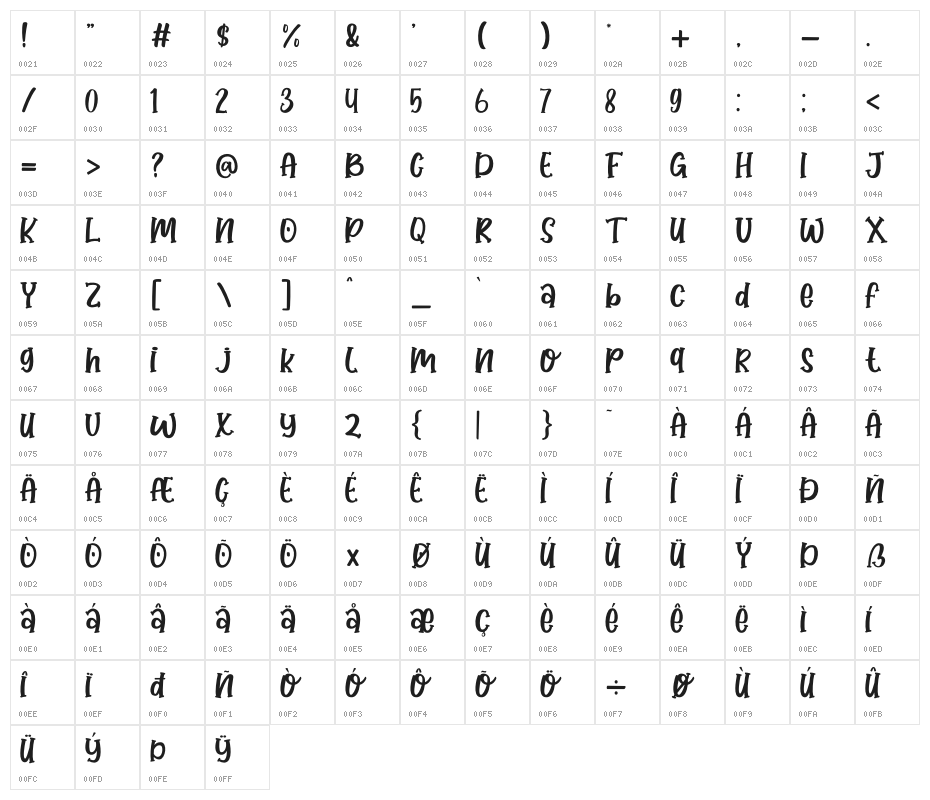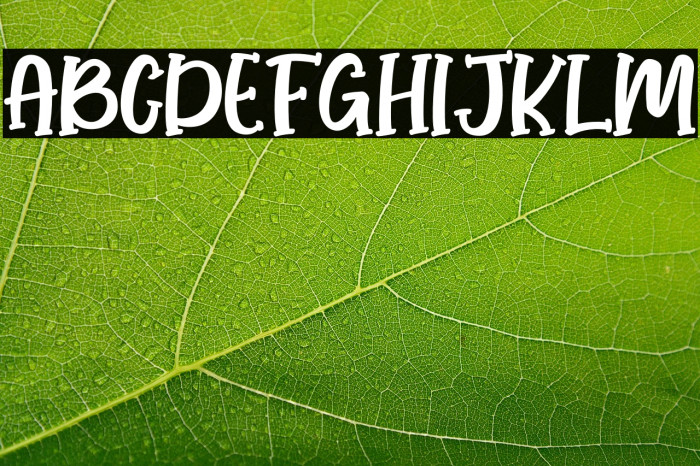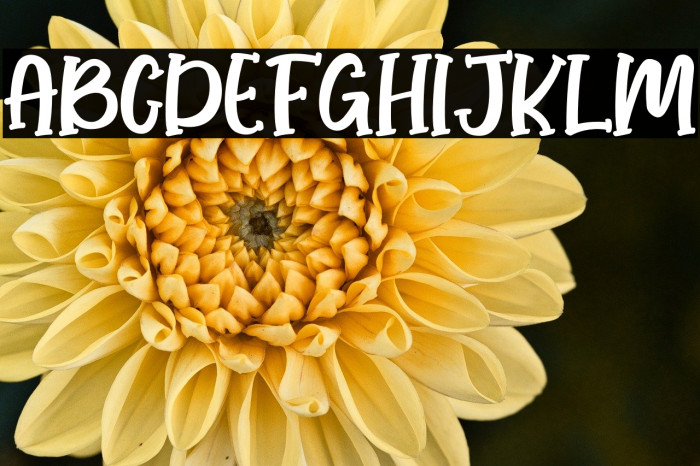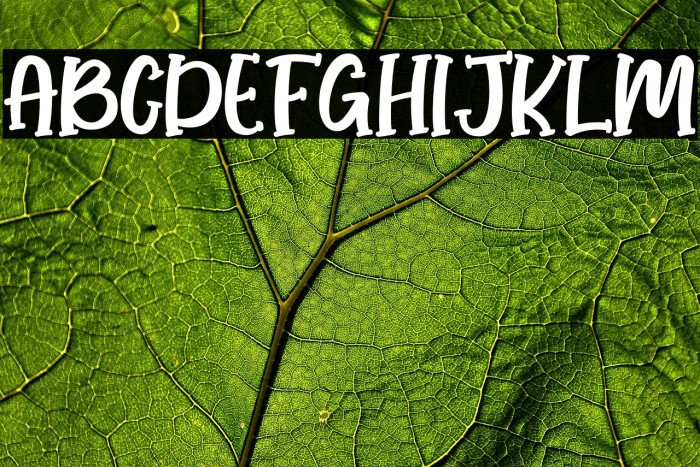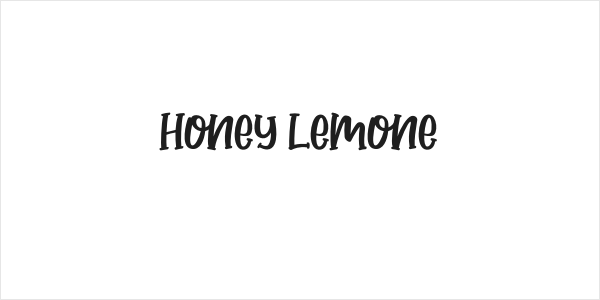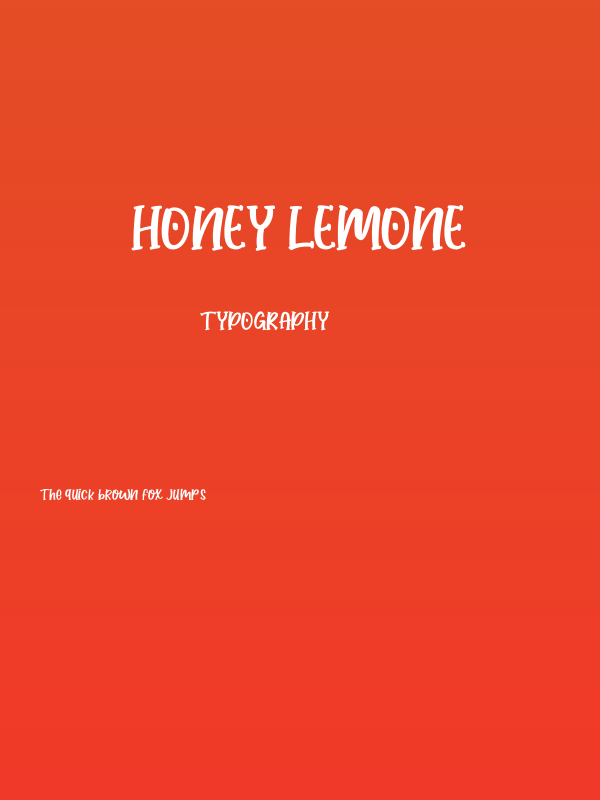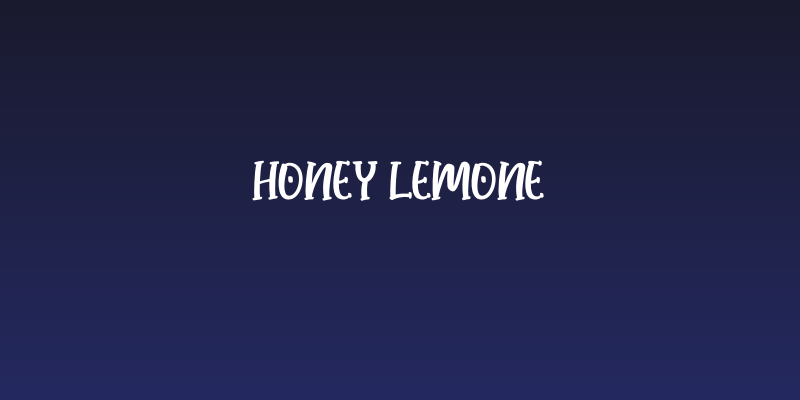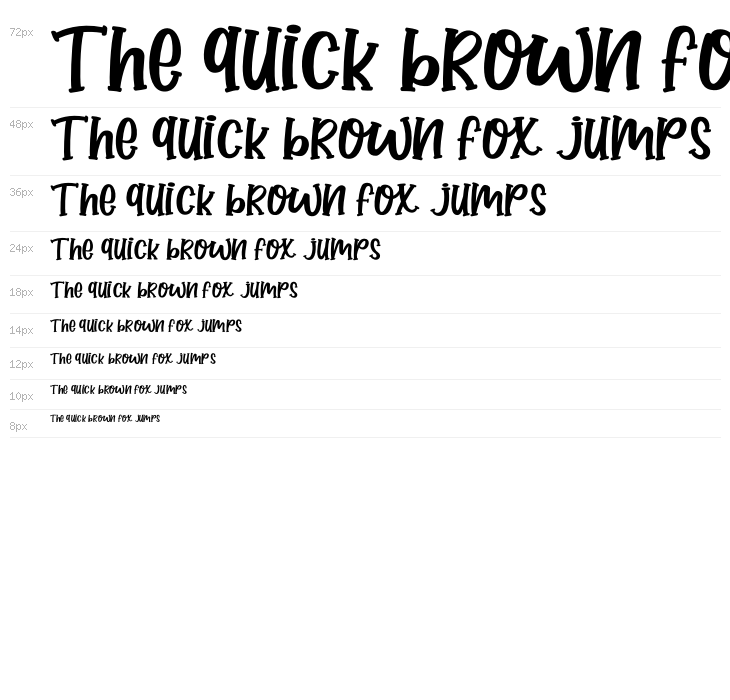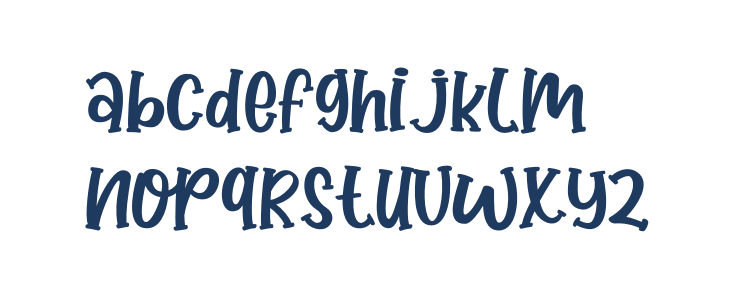
Honey Lemone Font
Honey Lemone Description
This font features a playful and whimsical design, characterized by its bold, rounded strokes and slightly irregular letterforms. The uppercase and lowercase letters exhibit a hand-drawn quality, with a consistent thickness throughout each character, giving it a friendly and approachable appearance. The numerals and special characters maintain this style, ensuring a cohesive look across all text elements. The font's unique charm makes it suitable for projects that require a touch of personality and creativity.
| Proposed Projects | Ideal for children's books, playful branding, greeting cards, and creative posters. |